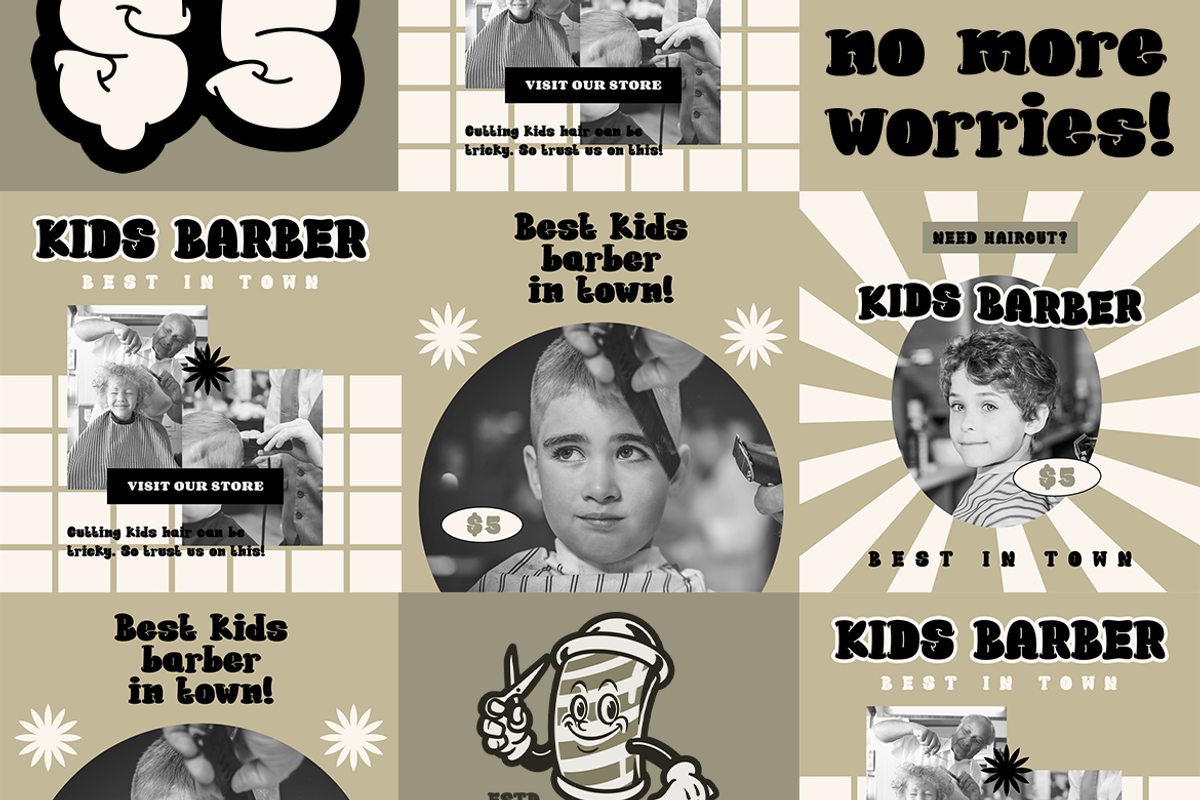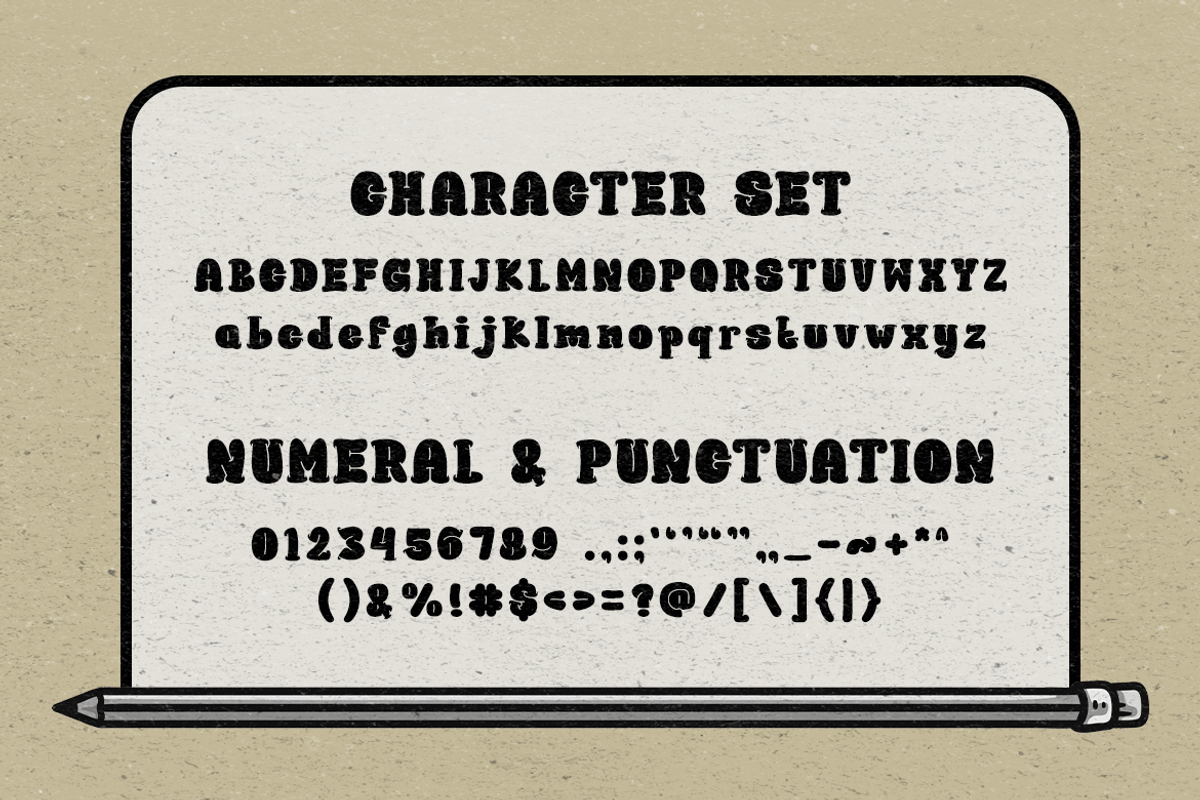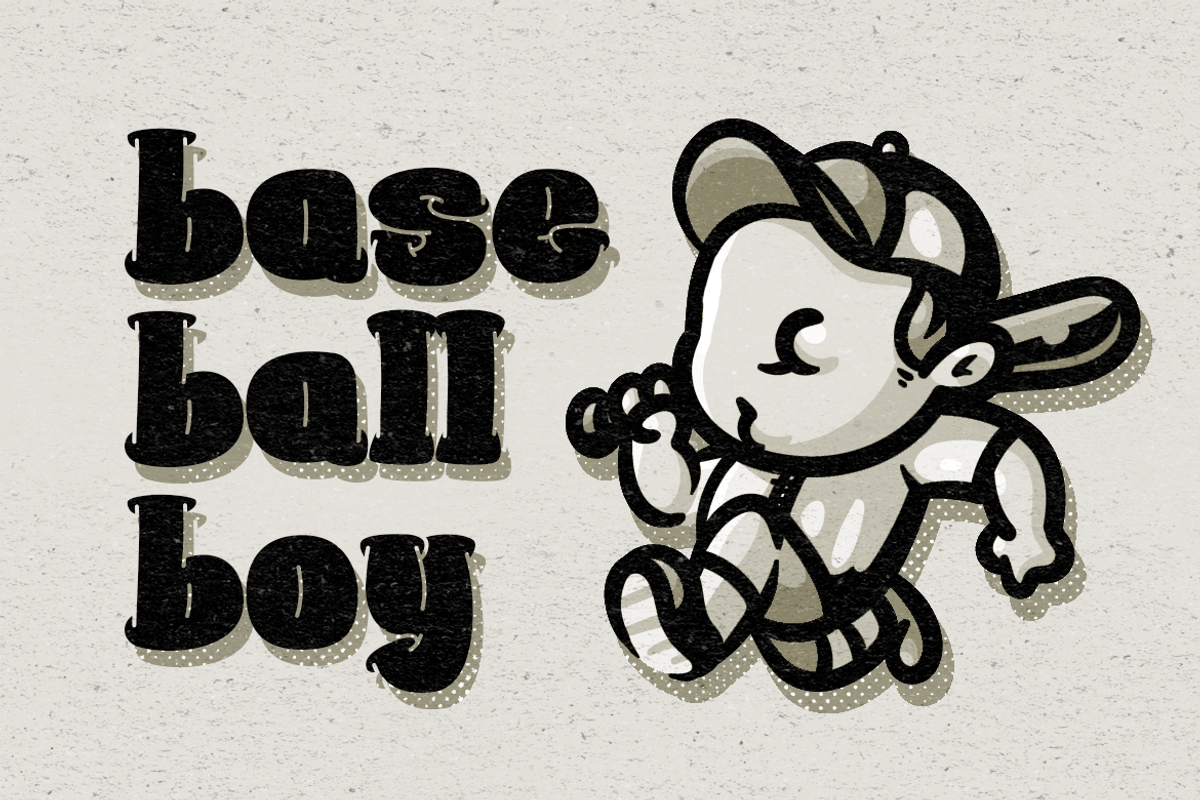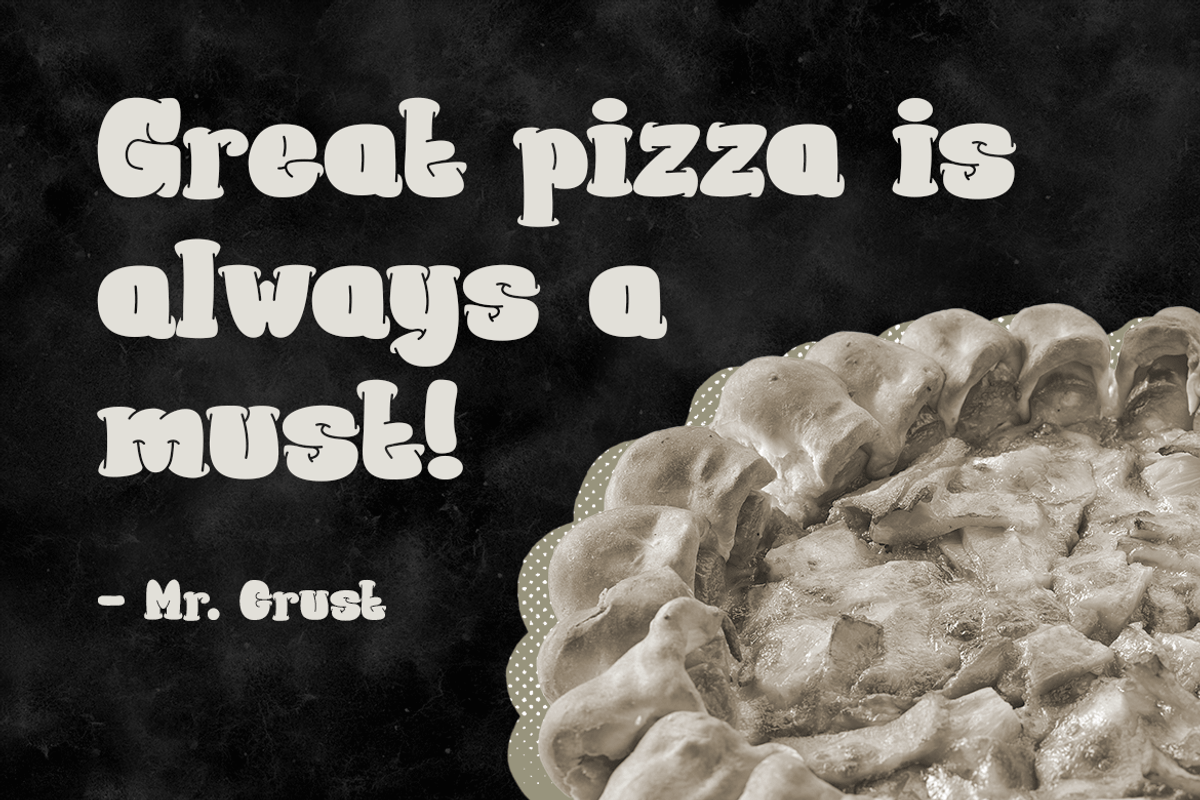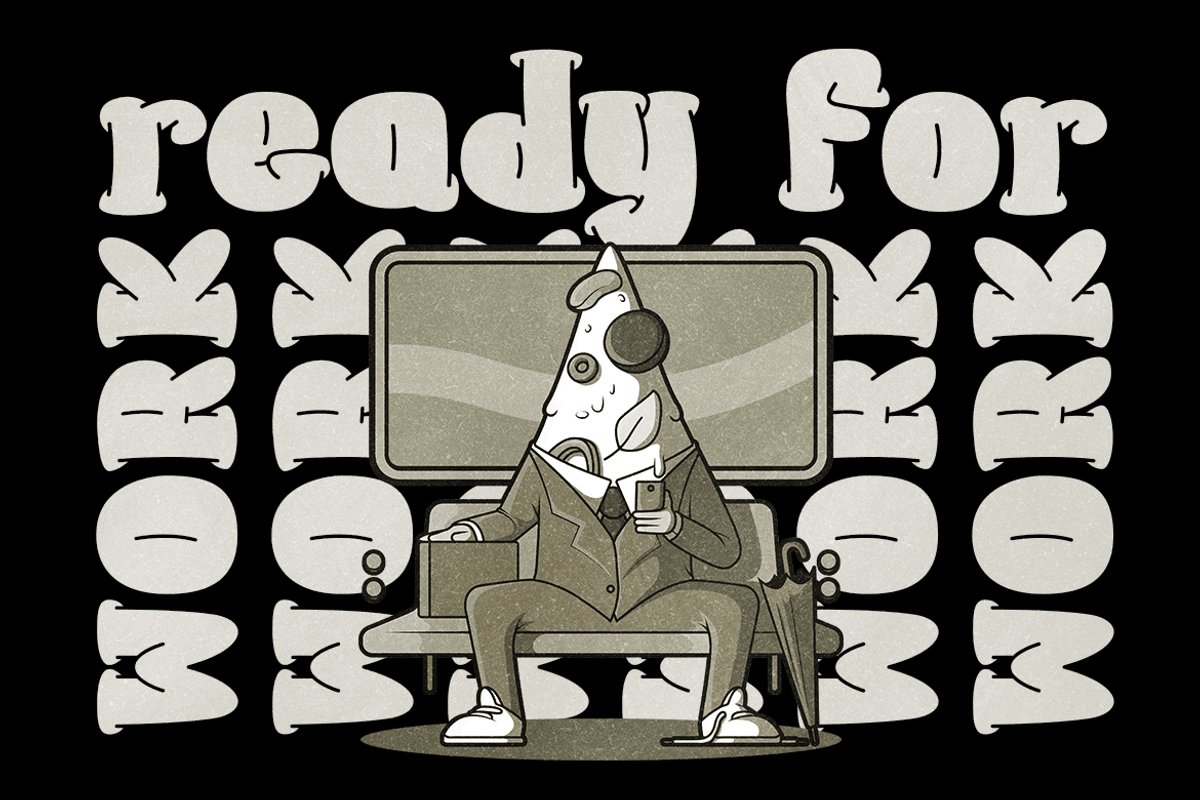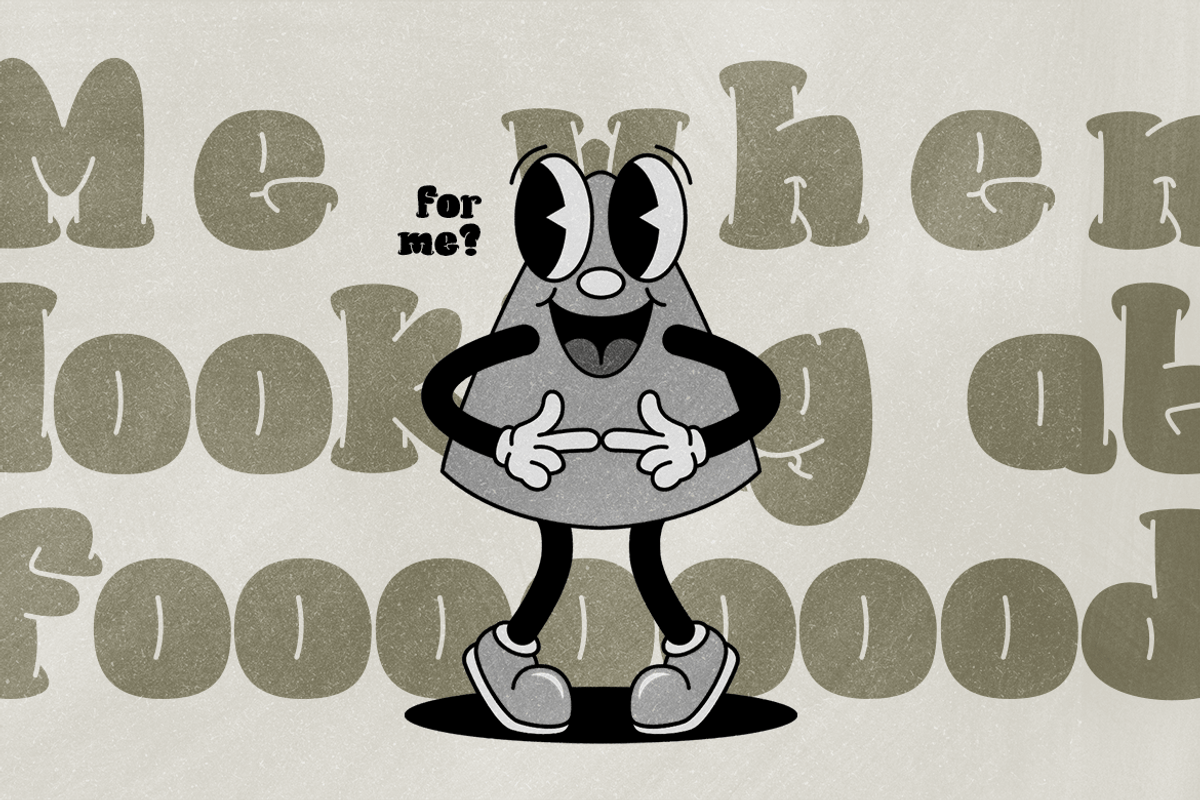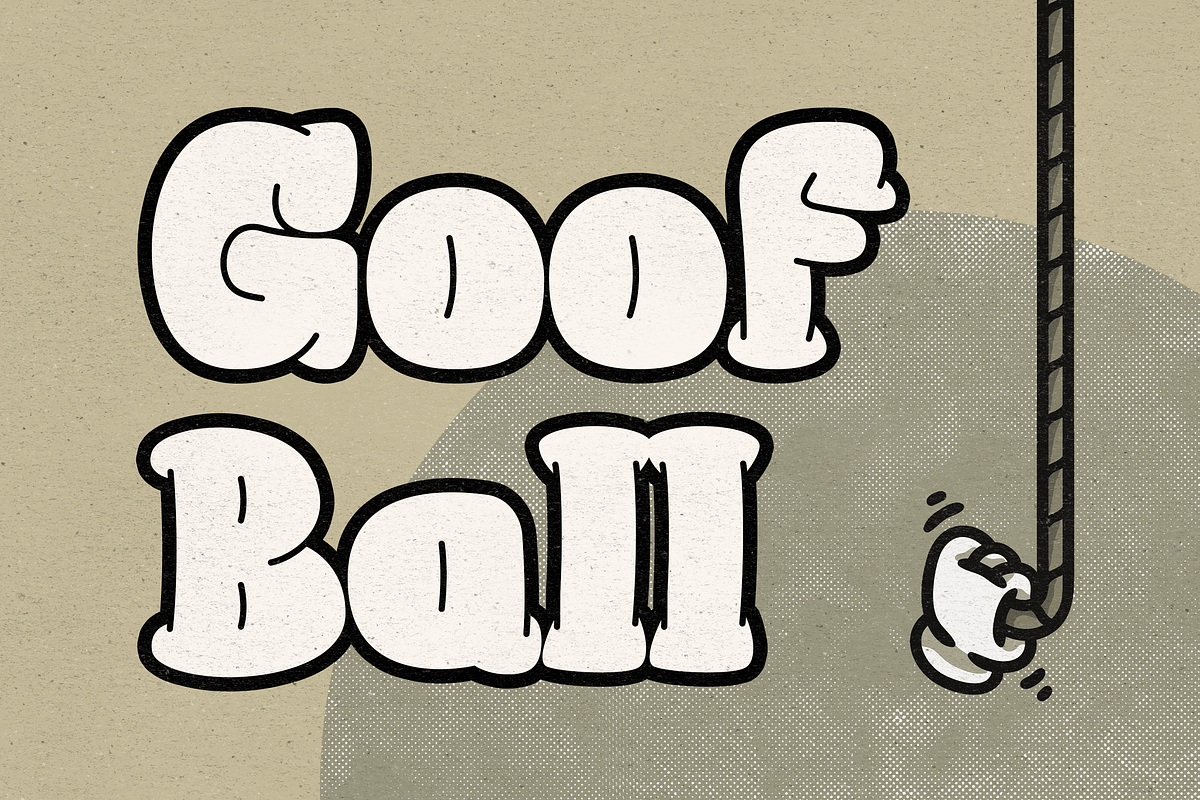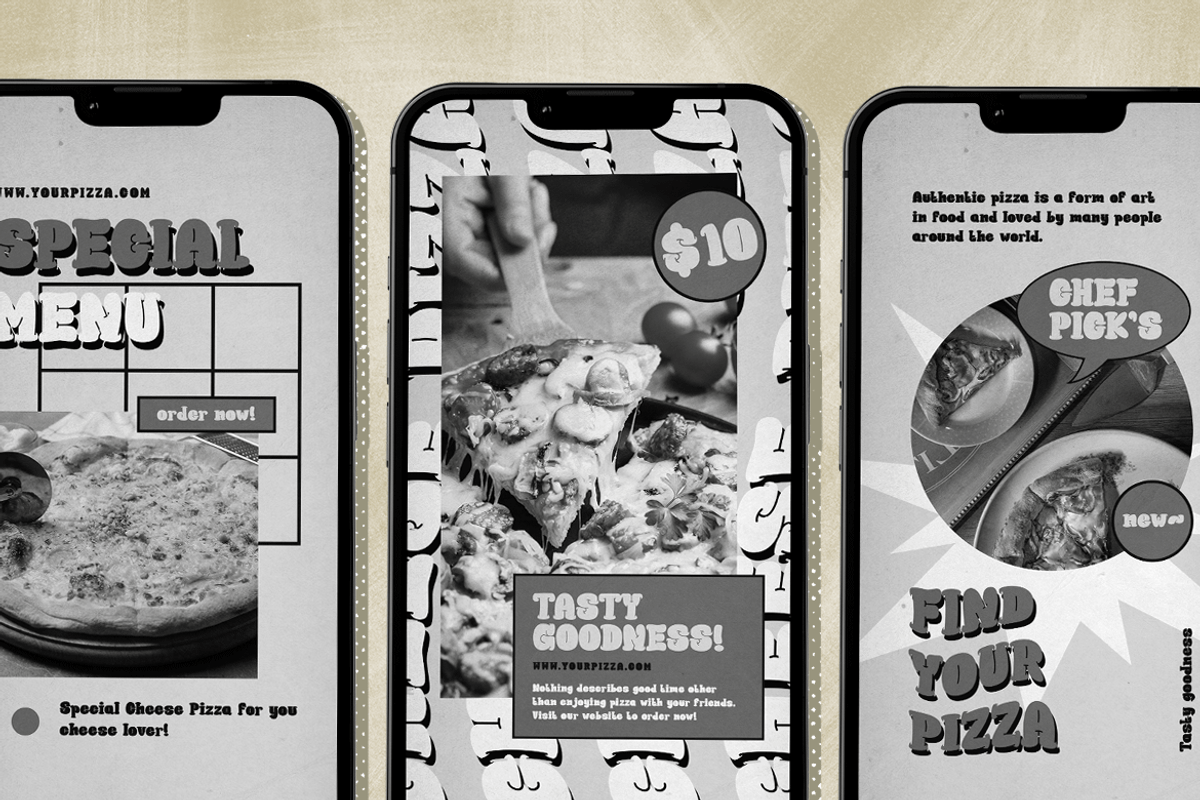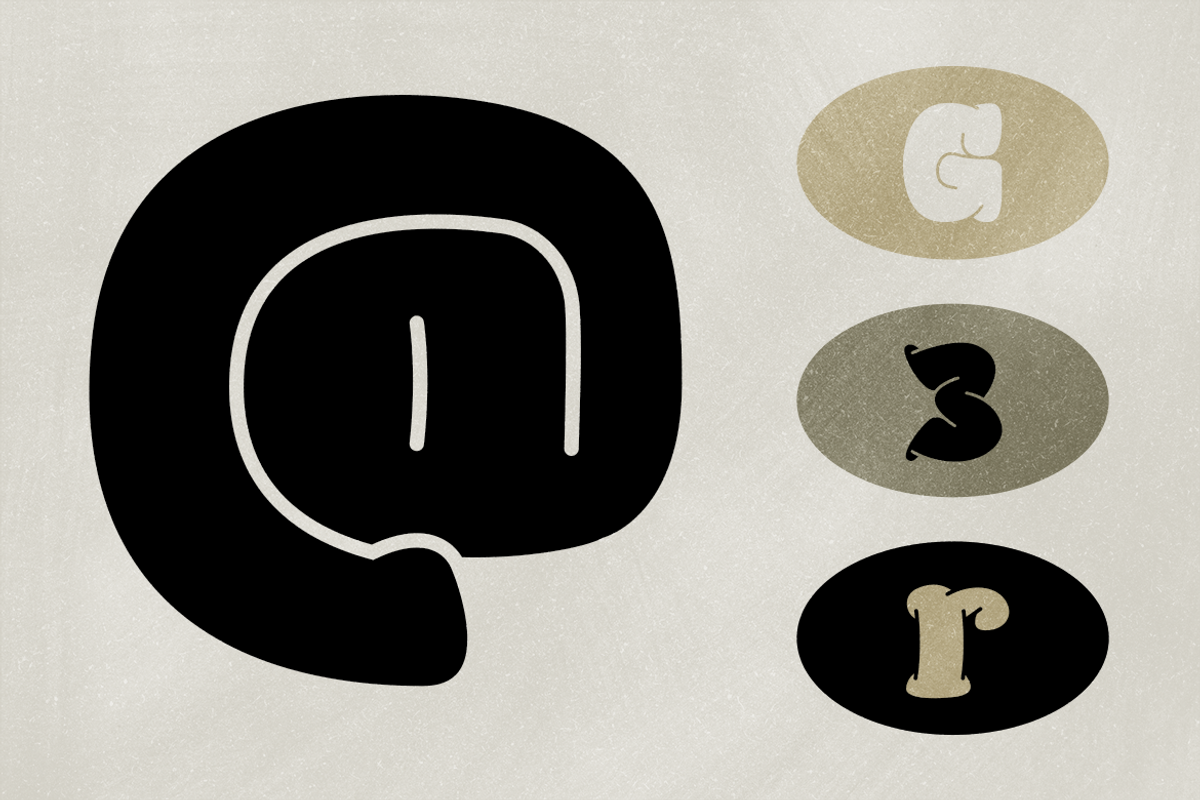
Goof Ball - Sporty Cartoon Font
Goof Ball - Cartoon Font
Retro is coming back, and this time, it's coming on HOT ! With Goof Ball your fun retro projects will get the much needed addition to make it pop from the other.
Suit perfect for retro comic books market, online games, vintage event posters, school supplies font, posters, movie titles, youtube covers, youtube thumbnails, social media page covers, and so on...